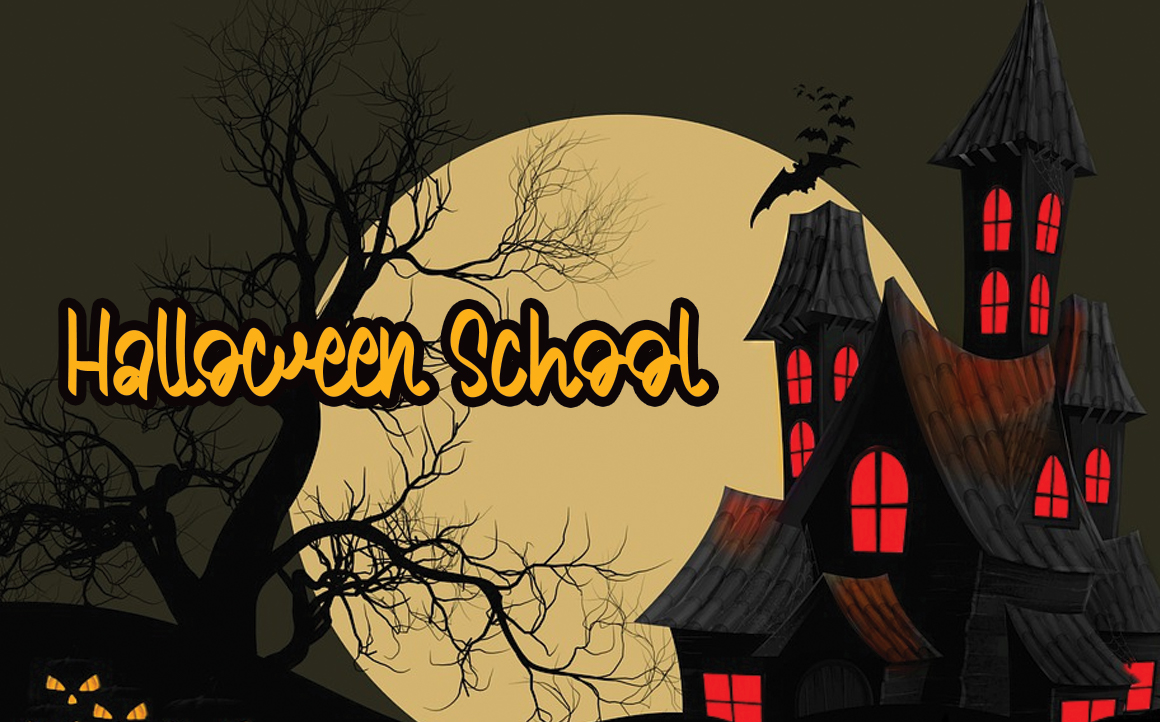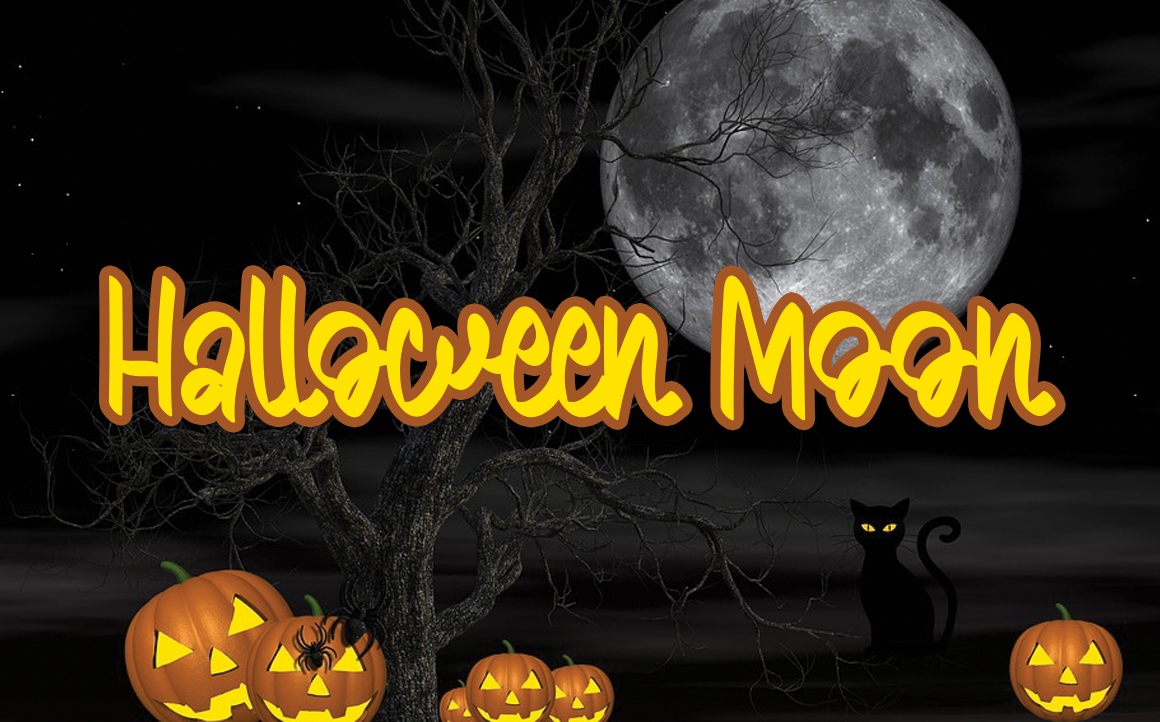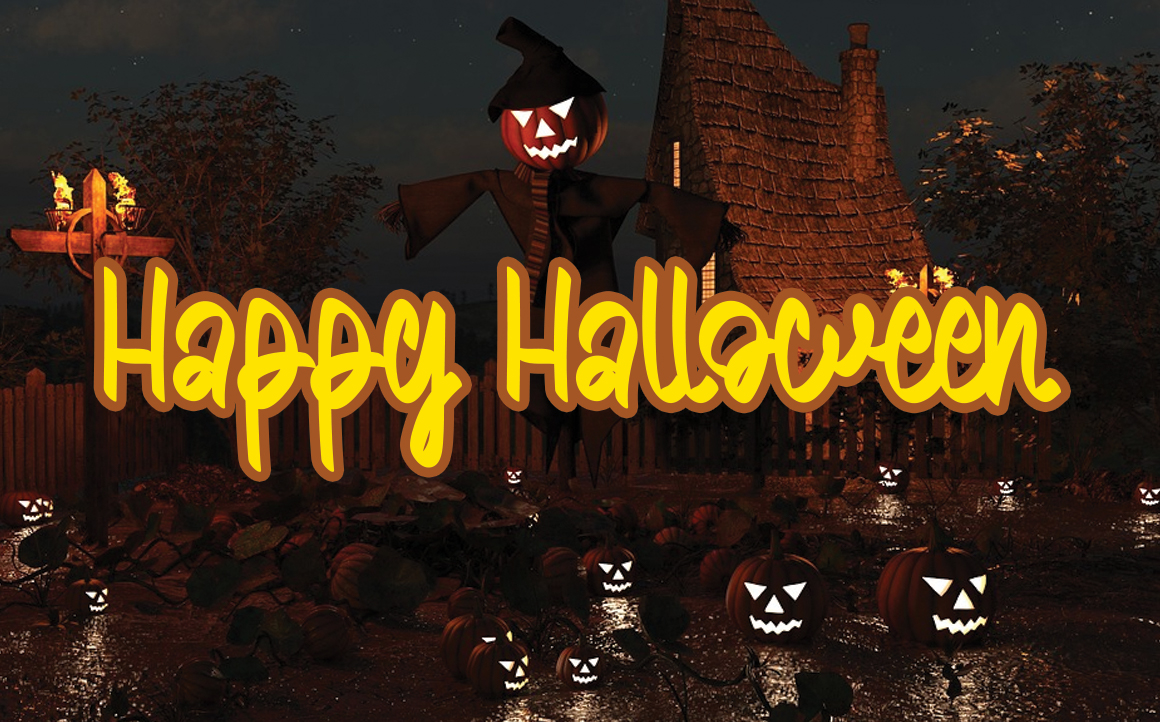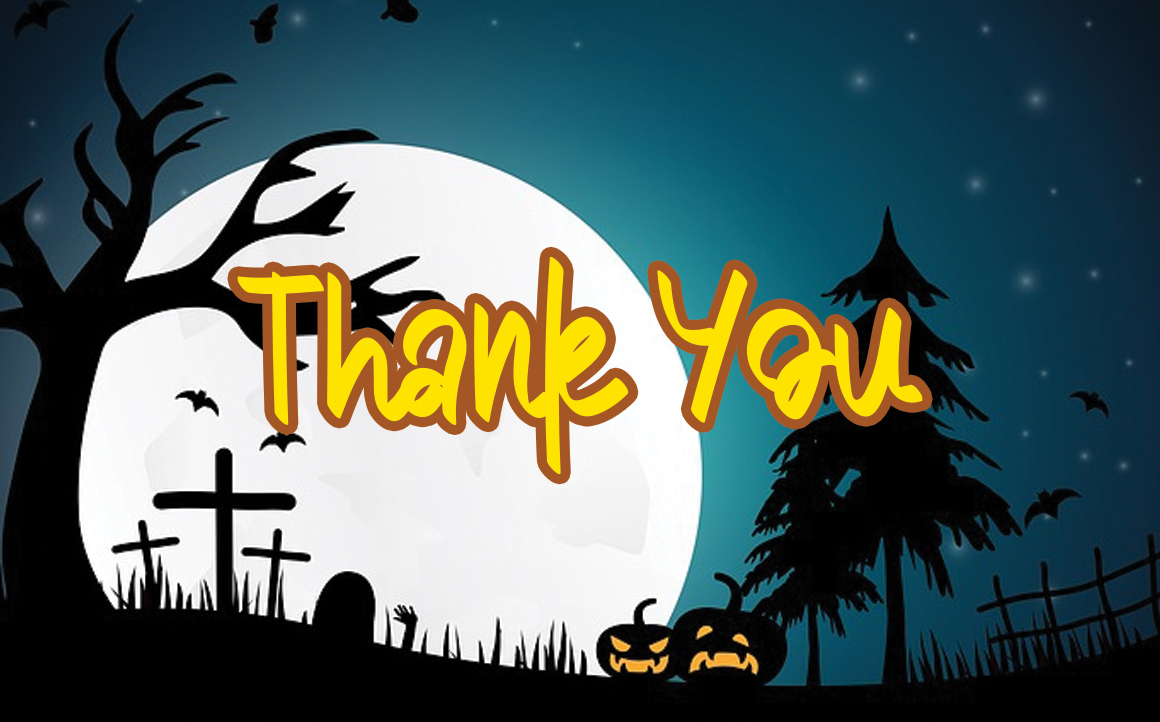
Pumpkin Halloween Font
Pumpkin Halloween Script Font
This is a unique, fun and friendly handwritten font. Whether you’re looking for a font for Instagram or a calligraphy script for a DIY project, this font will turn any creative idea into a true work of art!